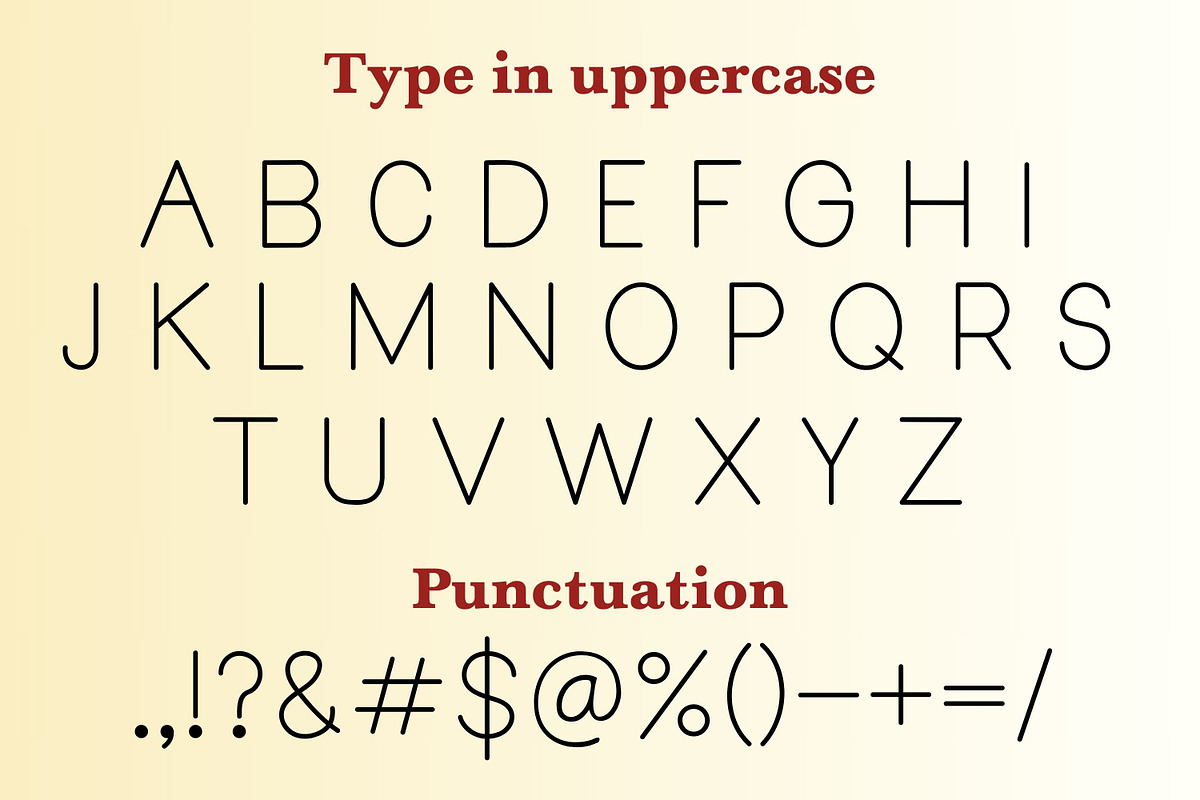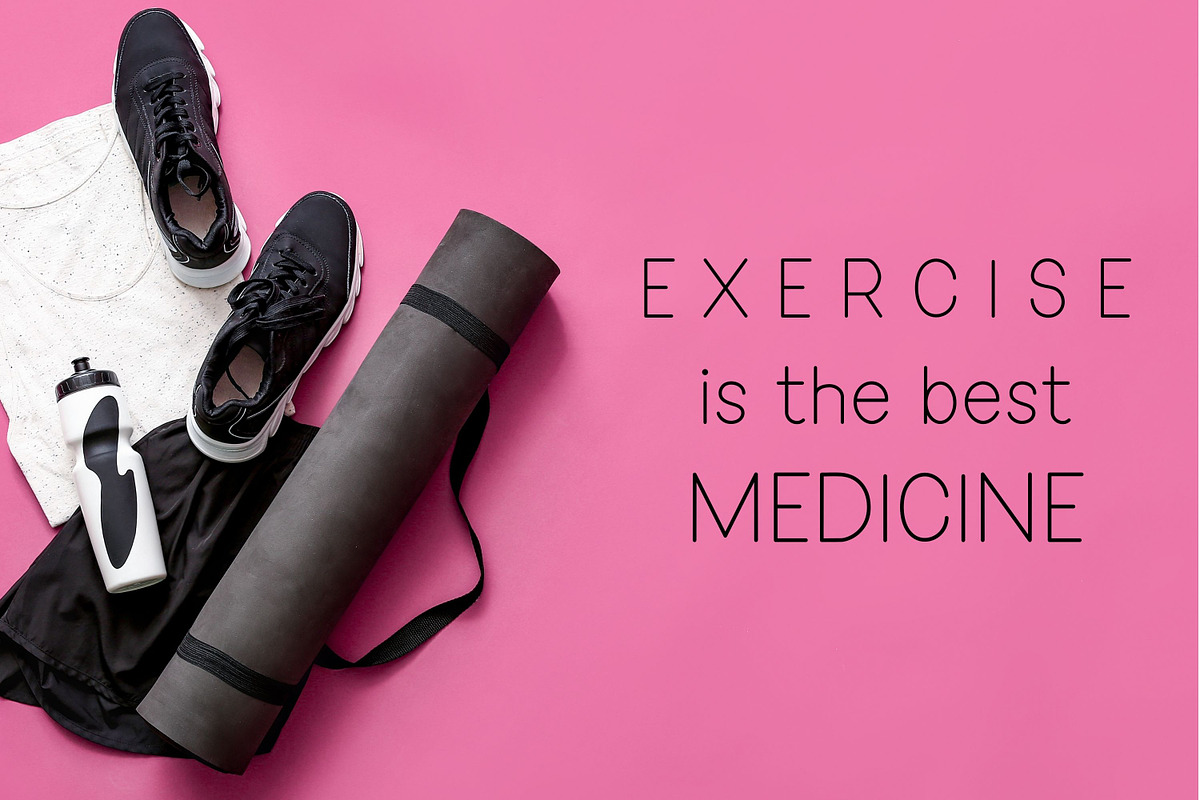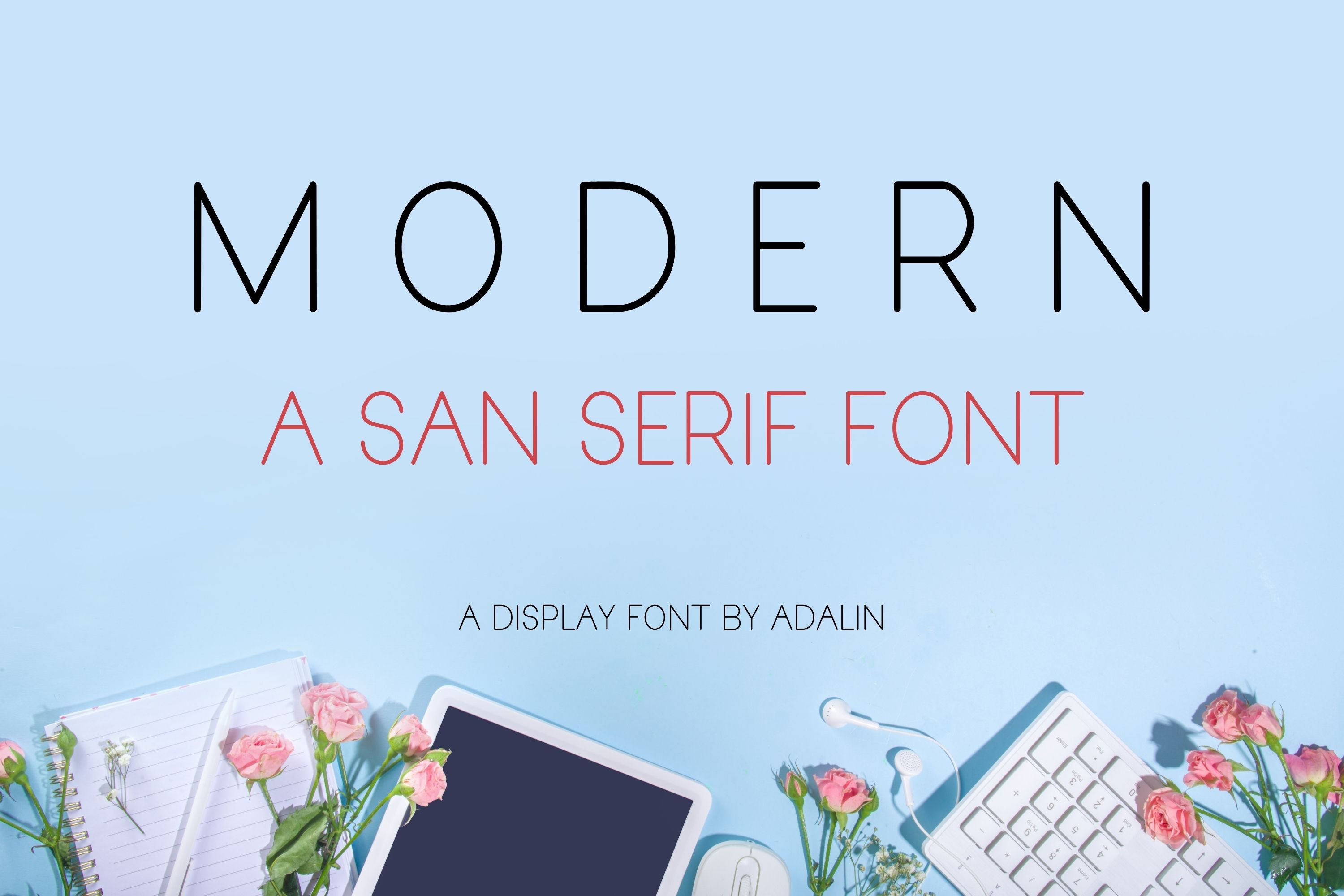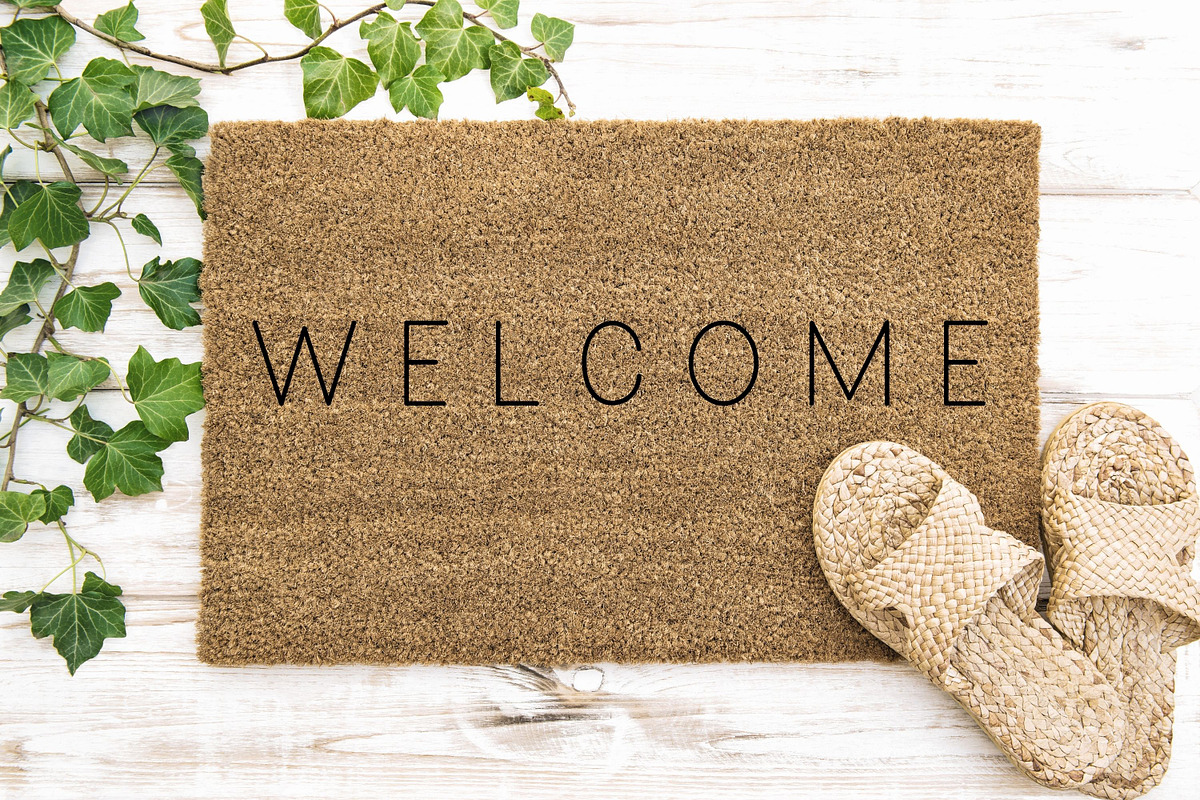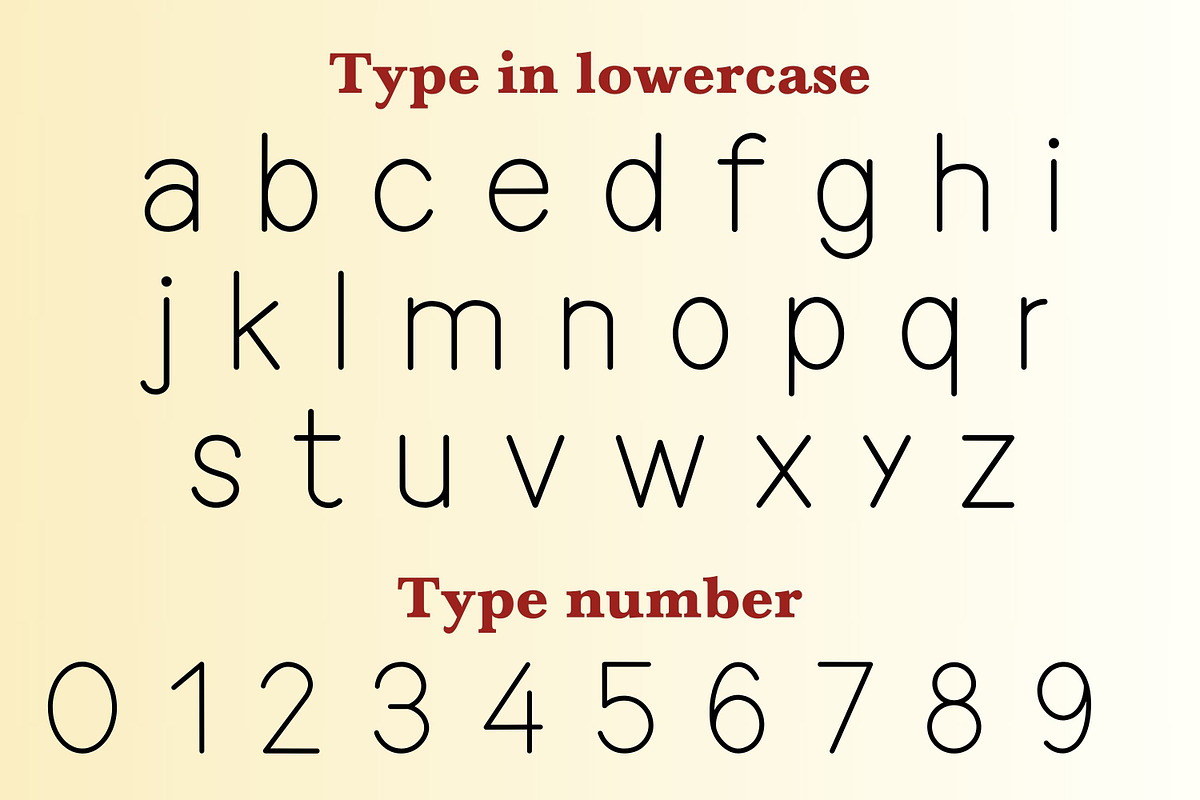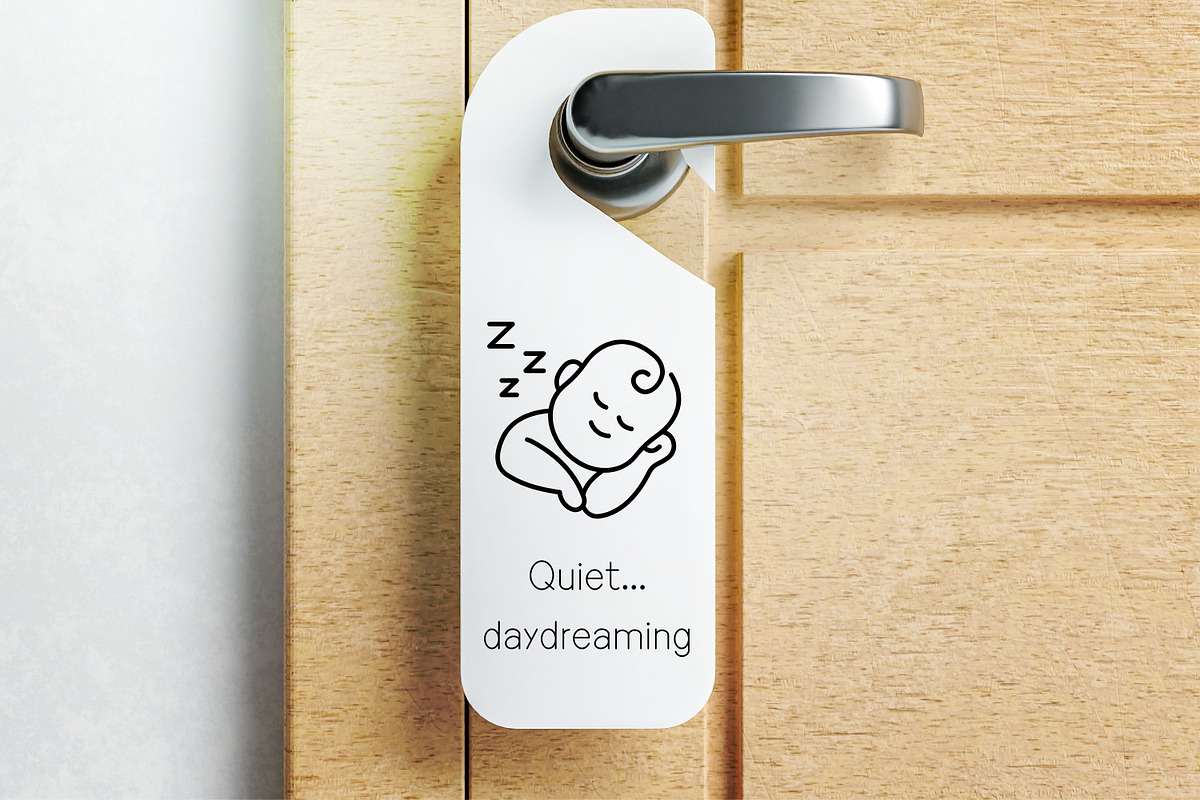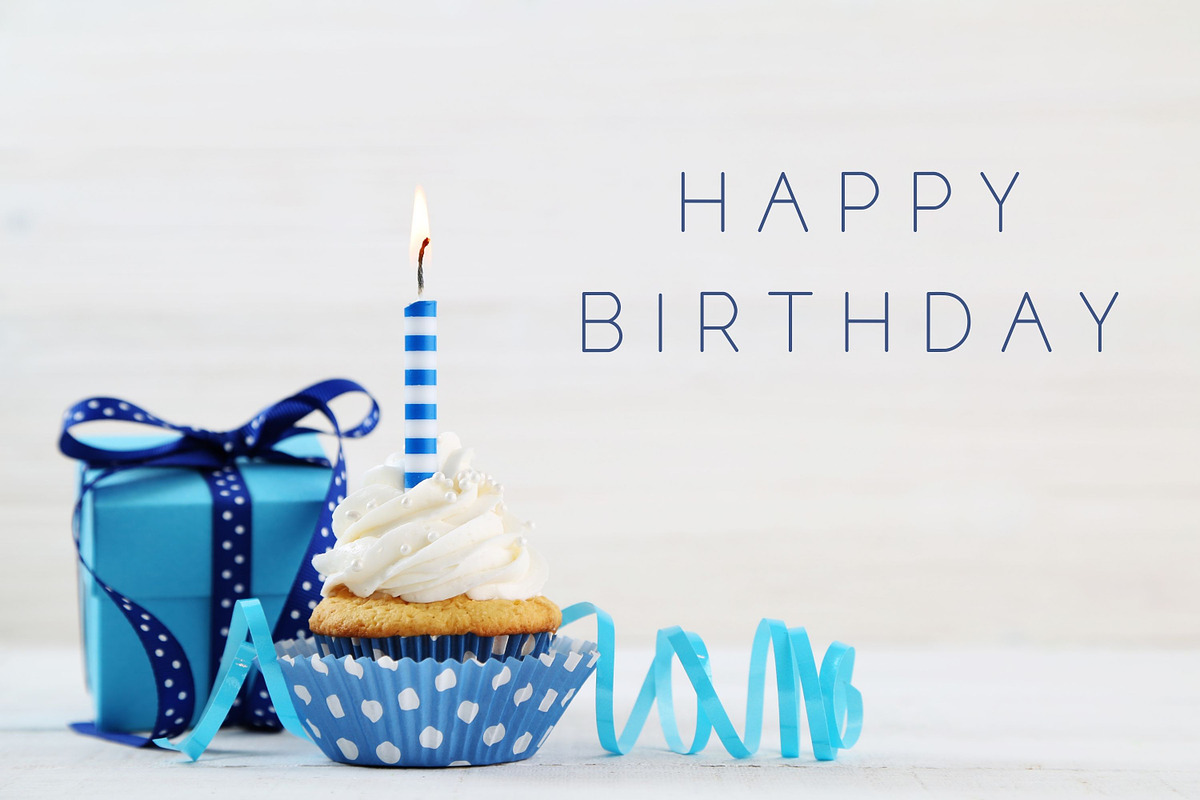
Modern - San Serif Font
Modern - San Serif is perfect for crafting, logos, branding, pantry labels, stickers, greeting cards, procreate, shirts, posters, social media, planner prints and more!
- Modern San Serif Fonts - type in uppercase and lowercase